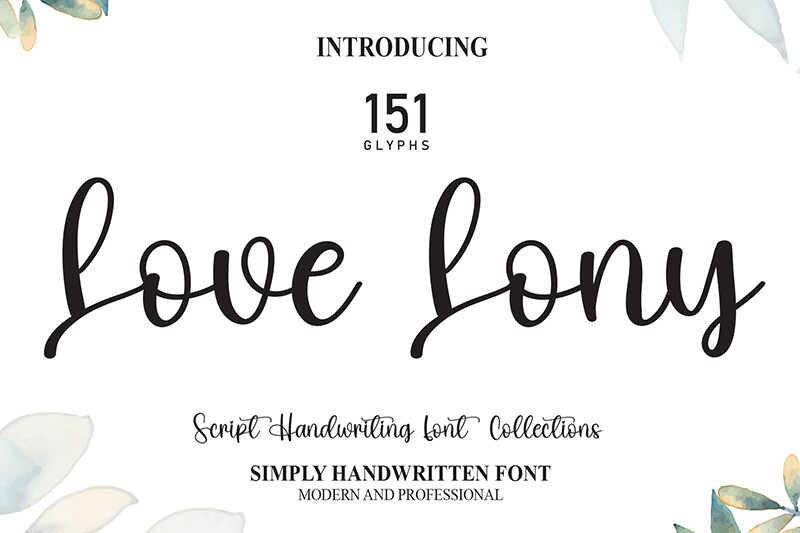
Love Lony
Love Lony by scratchones is a charming semi-light font that exudes sweet, feminine energy. The cute calligraphy style features flowing lines and delicate curves that are perfect for wedding invitations, love letters, or any project that needs a touch of romance. Love Lony's playful personality also makes it suitable for children's books, greeting cards, and social media graphics. With its legibility and unique flair, this semi-light font adds a personalized touch to any design. Let Love Lony bring joy to your next project!
the latest style letters are perfect for wall displays, wedding invitations, social media post logos, advertisements, product packaging, product designs, labels, photography, watermarks, invitations, stationery, and any project that requires taste handwriting.